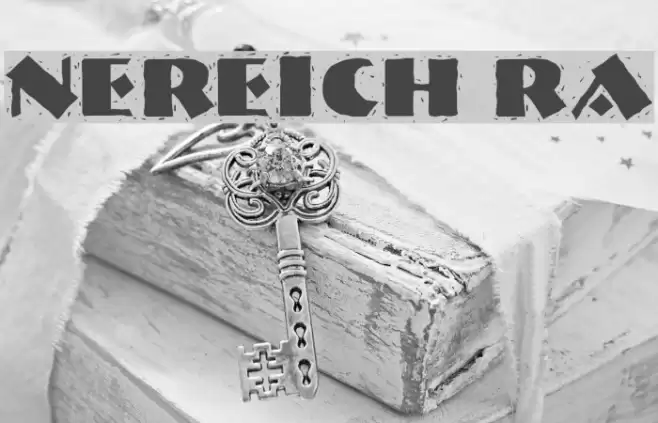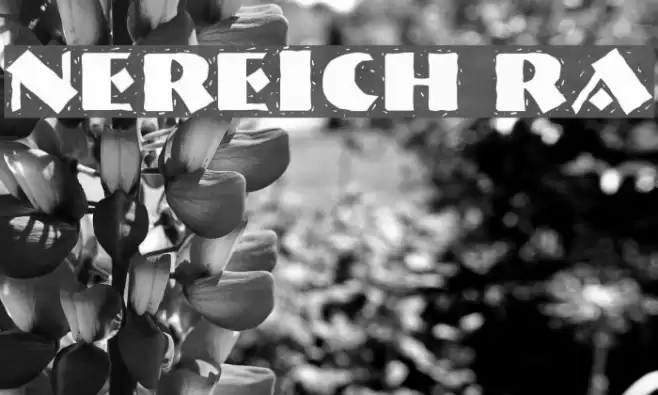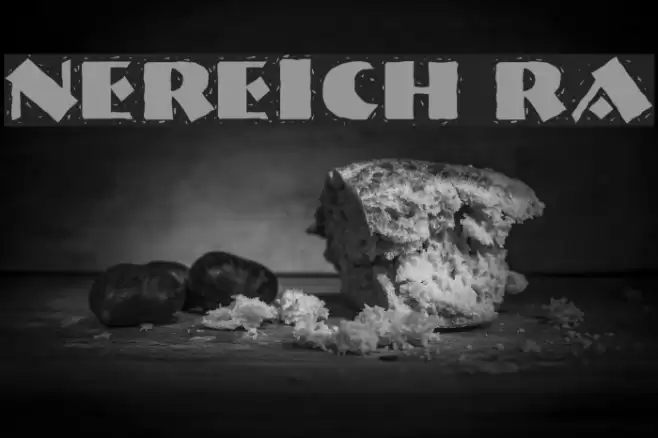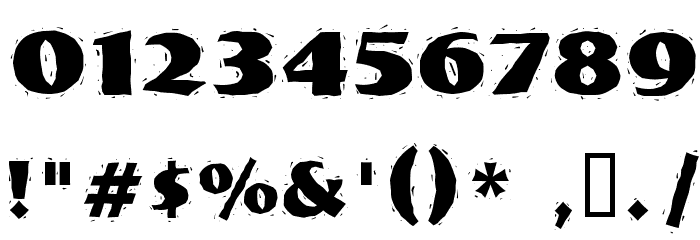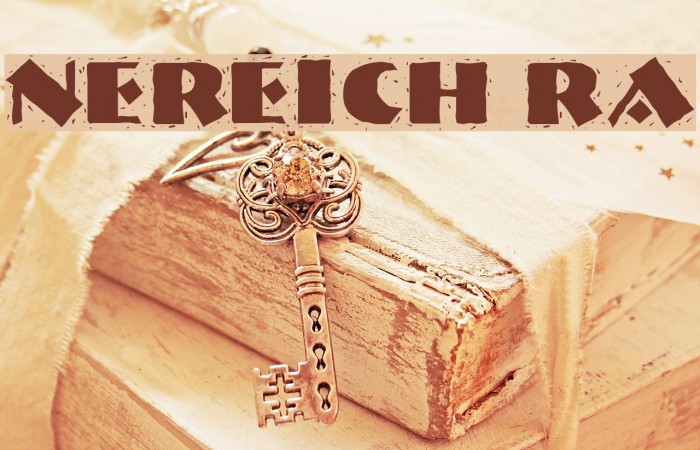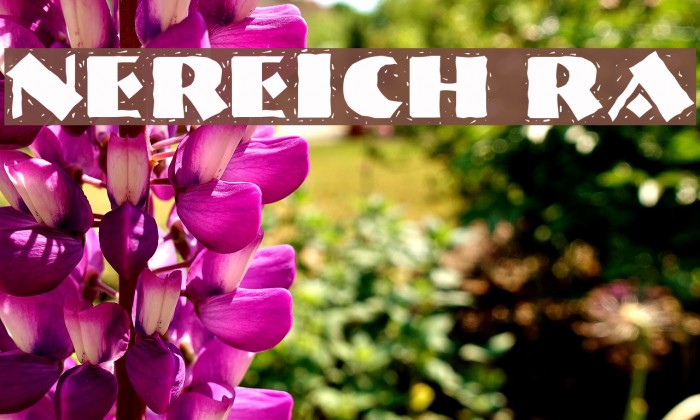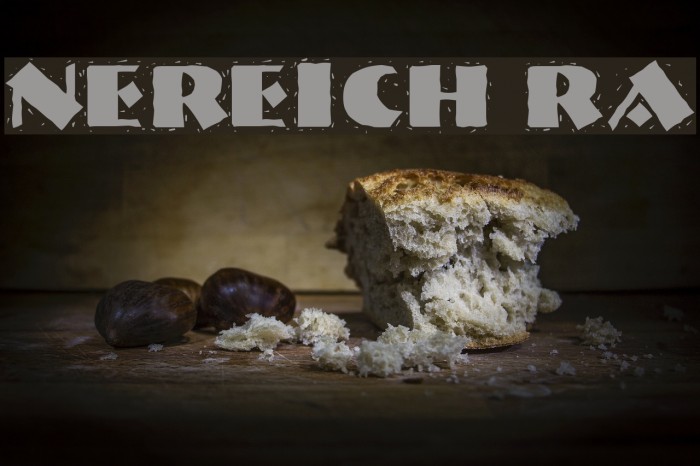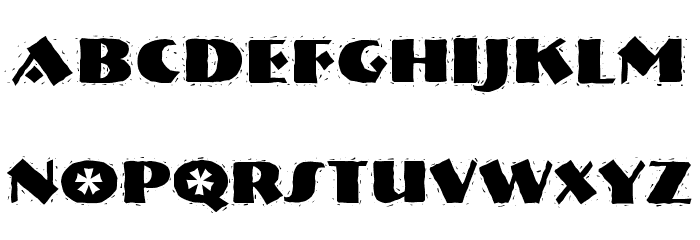
NervouzReich Rank Font
NervouzReich Rank Description
This font features a bold and striking design with a distressed, grunge-like texture that gives it a rugged and edgy appearance. The uppercase letters are characterized by sharp angles and a star-like cutout in the center of the 'O' and 'Q', adding a unique flair. The numbers and special characters maintain the same boldness and texture, ensuring consistency across all glyphs. This font is highly decorative and stands out with its rough, textured style, making it ideal for attention-grabbing designs.
A bold, distressed font with a unique star cutout in select letters from Decorative fonts.